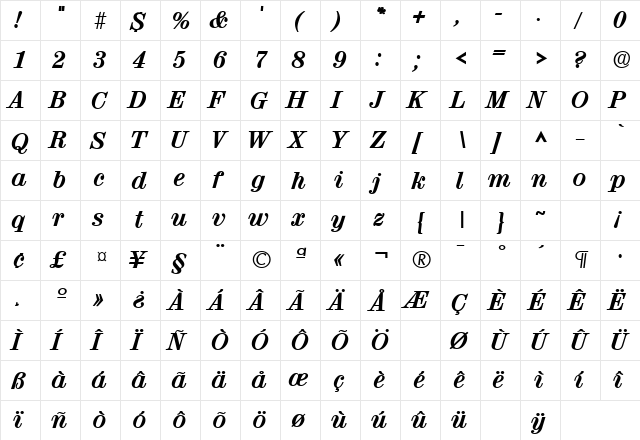
Geneva Heavy SF Bold Italic
Design Context for Geneva Heavy SF Typeface
Geneva Heavy SF is a composed and adaptable typeface that performs quietly and consistently across a wide range of design contexts. The dynamic lean of this cut emphasises speed and emphasis in any layout. Its bold stroke weight gives it real presence on the page.